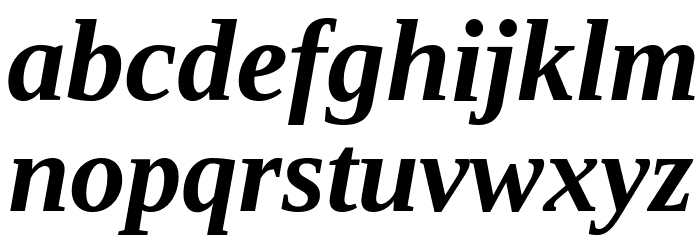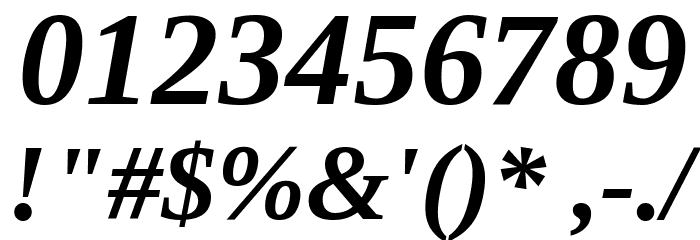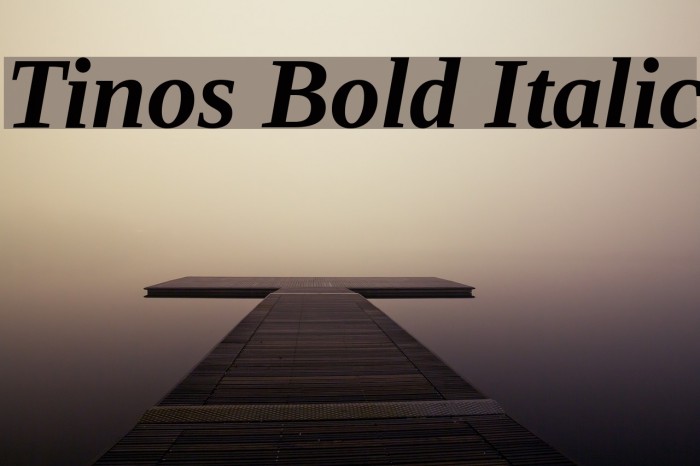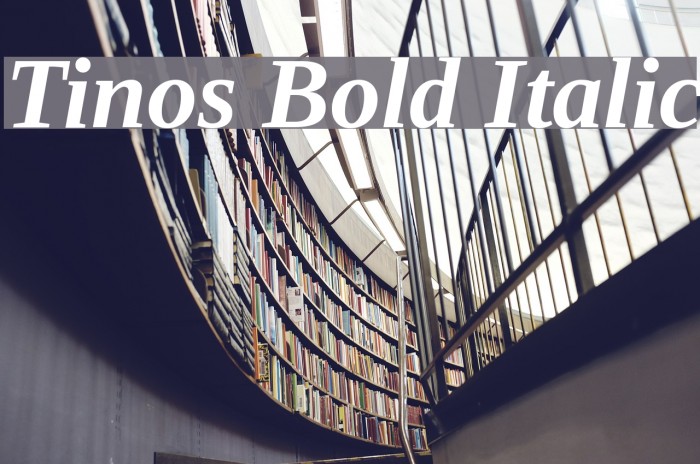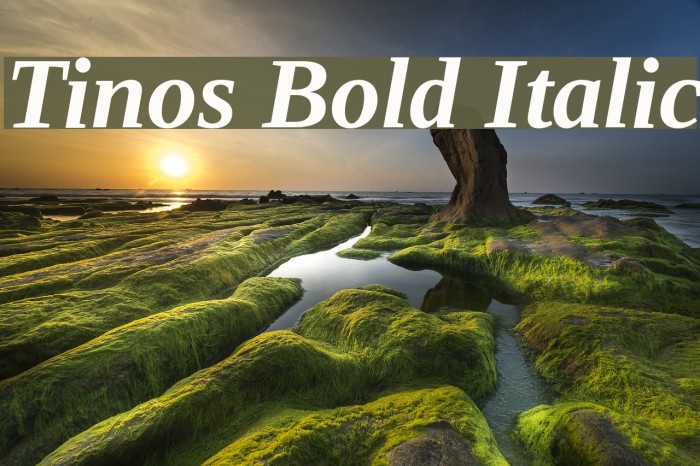
Tinos Bold Italic Font
This font exhibits a classic serif style with a bold and italicized appearance. The letters are well-defined with a slight slant, giving it an elegant and sophisticated look. The serifs are pronounced, adding a touch of traditional charm while maintaining readability. The bold weight enhances its presence, making it suitable for impactful text. The italicization adds a dynamic flow to the characters, making it ideal for emphasis in text. The numbers and special characters are consistent in style, ensuring uniformity across different uses.
A bold, italic serif font with a classic and elegant style.
- Proposed Projects: Ideal for book covers, formal invitations, editorial headlines, and branding materials that require a touch of elegance.
- Category: Serif
- Overall Style: Classic
- Use Case: Headlines, Logos, Editorials